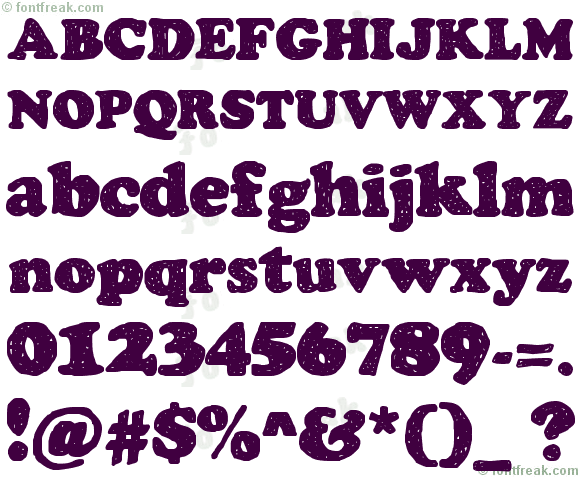
Chemistry by Denne
About Chemistry by Denne
Chemistry by Denne is a playful display font designed by Denise Bentulan in 2010. This unique typeface belongs to the decorative category, characterized by its whimsical and irregular letterforms that evoke a sense of creativity and fun. The font features a bold stroke weight with varying contrast, imparting a dynamic look that captures attention. The spacing is generous, allowing for clarity and readability, while the decorative elements add an artistic flair that makes it suitable for various creative applications.
This font is ideal for a range of use cases, particularly in educational materials related to science, such as posters or flyers for chemistry classes and workshops. Additionally, it can be effectively used for branding in laboratories, science-themed events, or even in children's books that focus on science topics. Its playful nature makes it a great choice for designing eye-catching invitations for science fairs or themed parties. Graphic designers and content creators will find this font particularly appealing due to its distinctive style, which stands out in both print and digital formats.
The target audience for Chemistry by Denne includes graphic designers, small business owners, educators, and content creators who are looking to add a touch of whimsy to their projects. This font not only captures the essence of creativity but also encourages a sense of curiosity, making it perfect for anyone looking to engage their audience in a fun and educational manner.